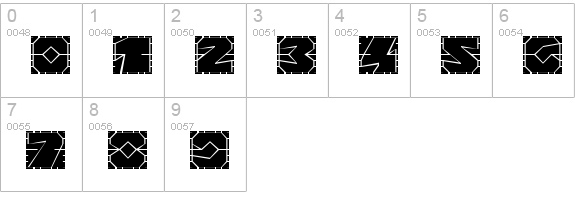
AlphaBloc-Corde Font Details
AlphaBloc-Corde font is a stunning display typeface that exudes elegance and sophistication. With its unique combination of sharp angles and flowing curves, AlphaBloc-Corde is the perfect choice for adding a touch of modern flair to your designs. This versatile font is ideal for a wide range of projects, from branding and logos to headlines and posters. What makes AlphaBloc-Corde even more appealing is that it is completely free to download at FontsMarket.com. Whether you're a seasoned designer looking to add a fresh new font to your collection or a beginner in need of a stylish typeface for your latest project, AlphaBloc-Corde is sure to impress. Don't miss out on this fantastic opportunity to enhance your designs with this beautiful and free font.